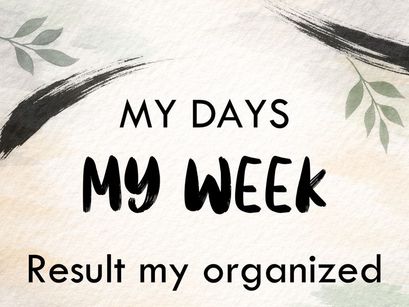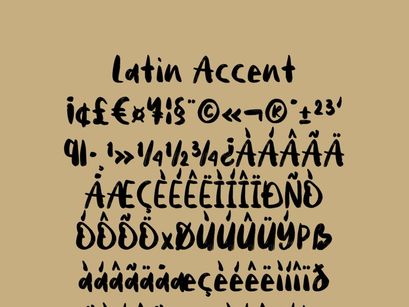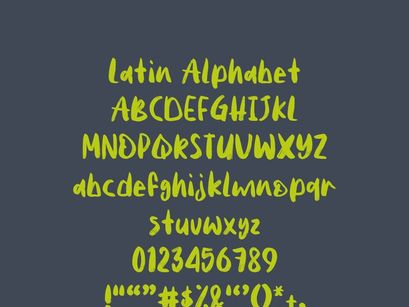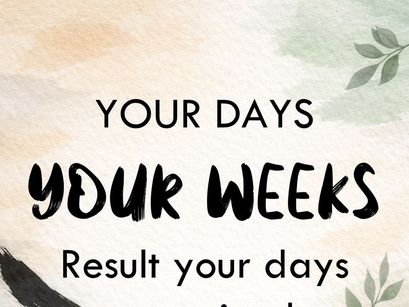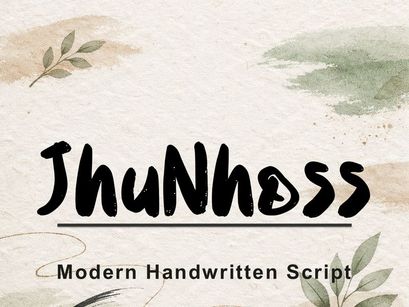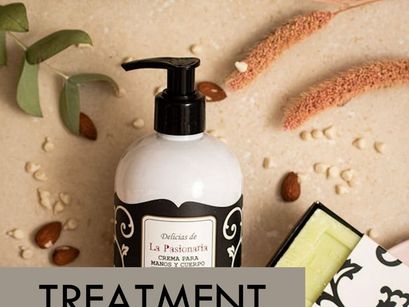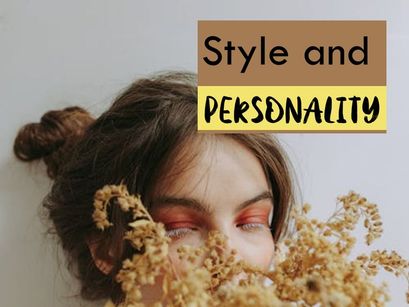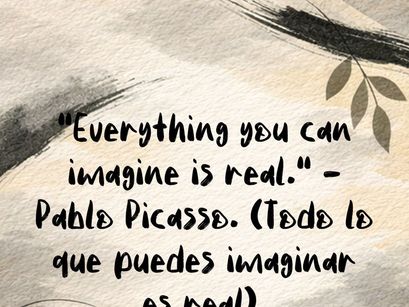
JhuNhoss is a modern handwritten font with bold, expressive strokes that convey energy, creativity, and personal style.
Designed for projects seeking a handcrafted and authentic touch, it pairs perfectly with natural compositions, inspirational quotes, and artistic branding.
Ideal for:
• Covers and titles with emotional appeal
• Beauty, wellness, and lifestyle designs
• Motivational phrases and digital lettering
• Products and packaging with an organic identity
• Full Latin alphabet
• Accented characters and basic symbols